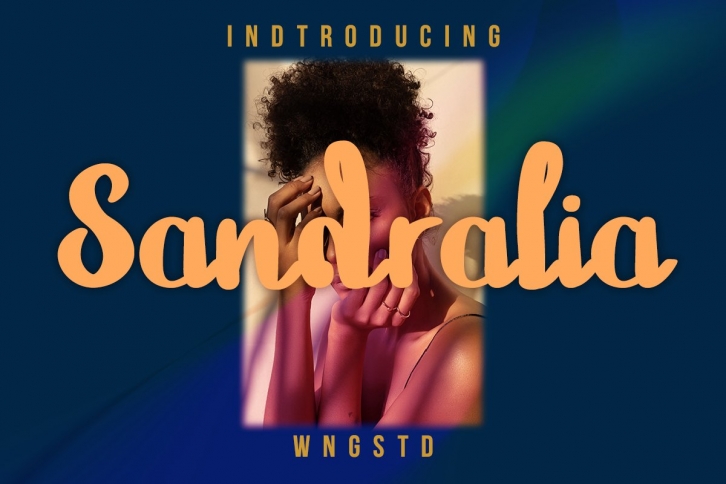
Sandralia - Black History Font Download
Sandralia is a trendy and unique font with an authentic style. It was designed by WNGSTD and it's a great choice for creative people who need such a font. It was released on February 9, 2021 and the file size is 6.15 MB. Sandralia will add an organic vibe to any design idea!